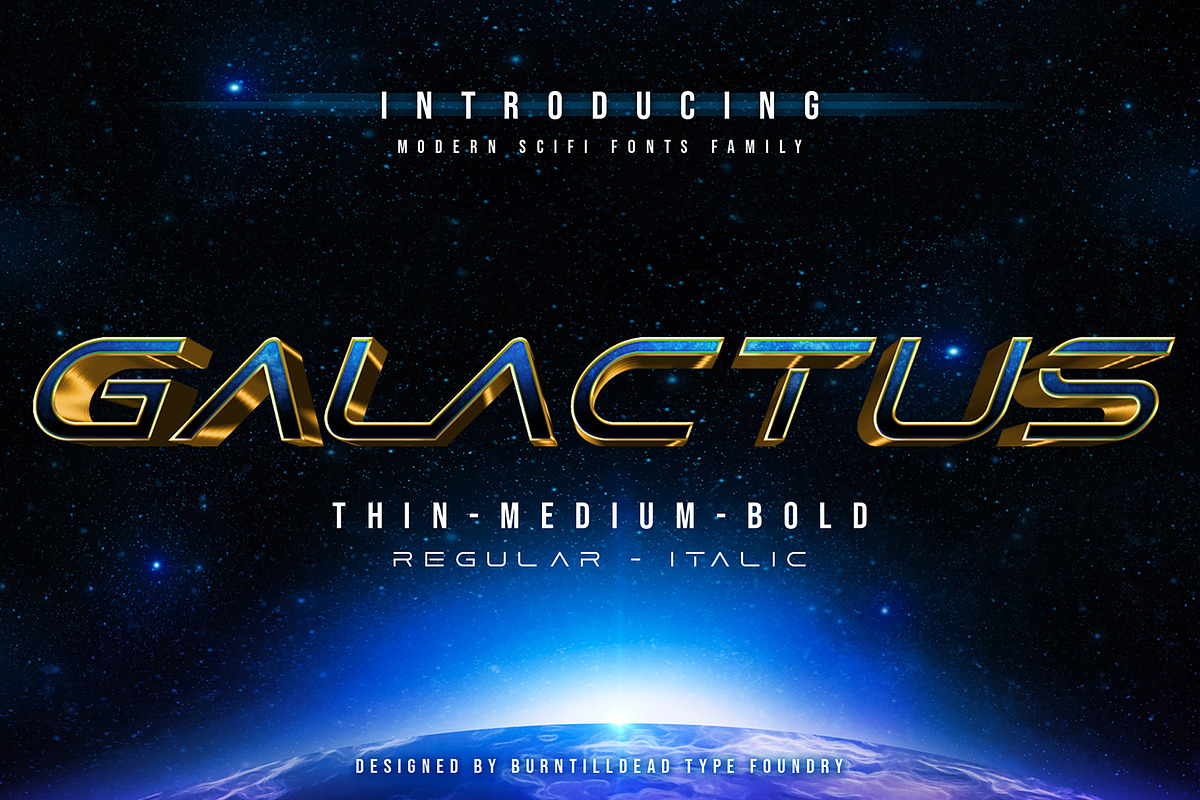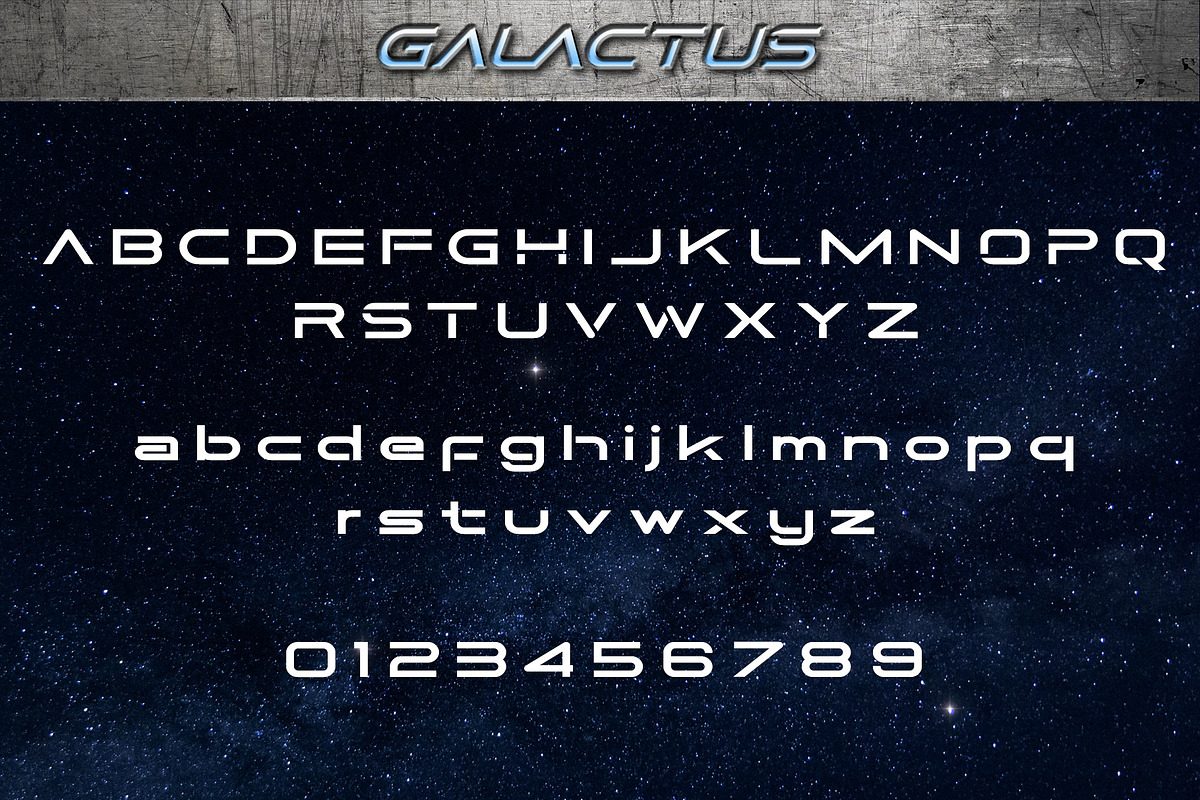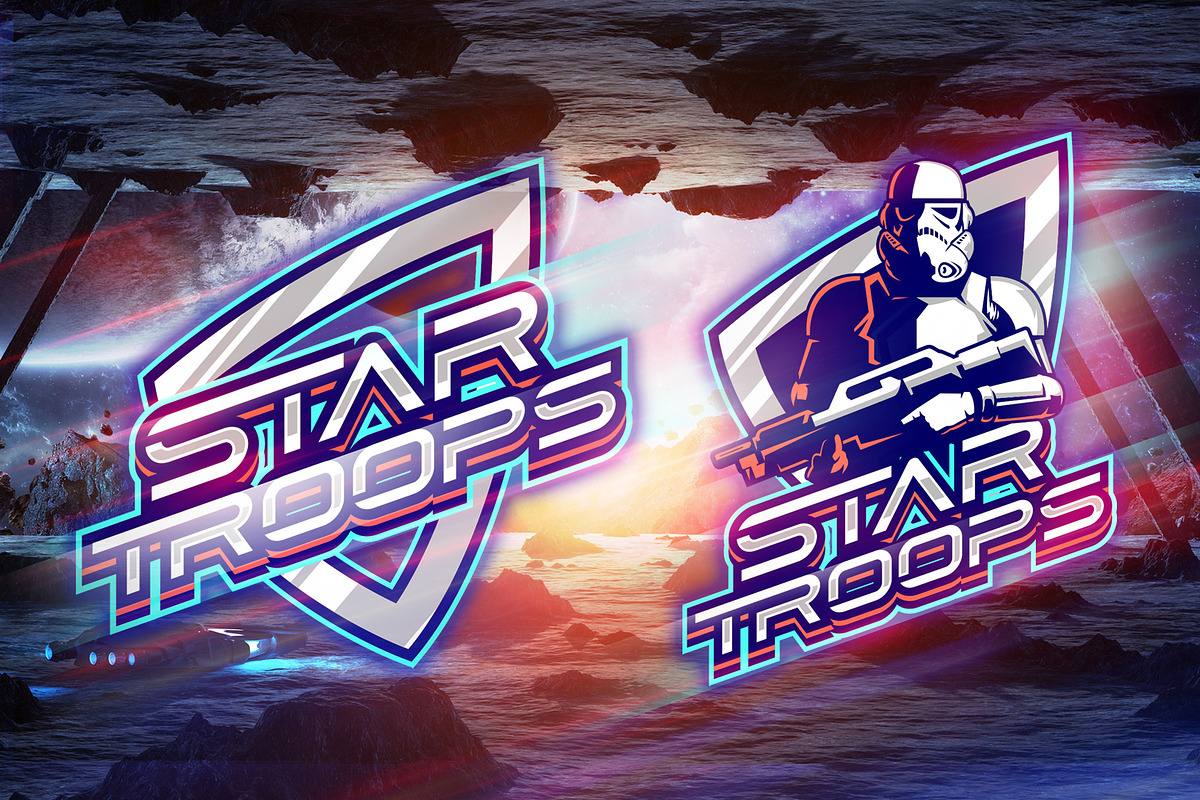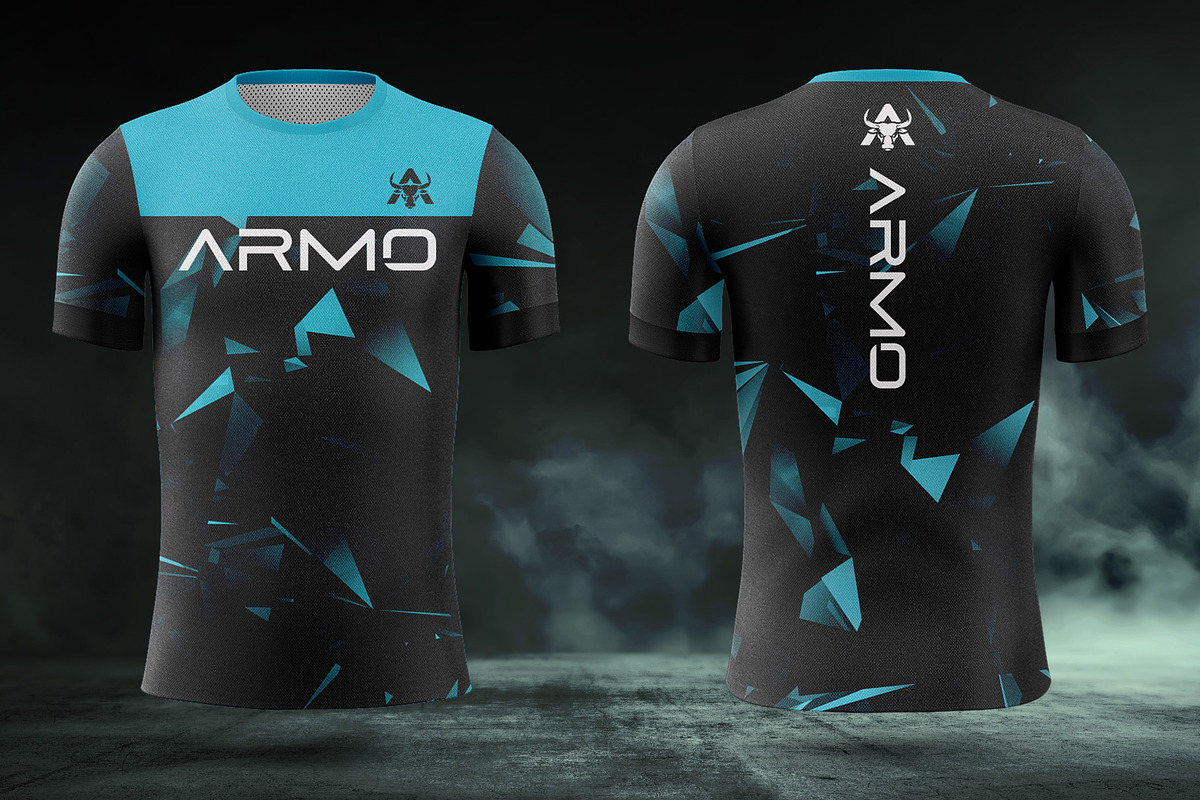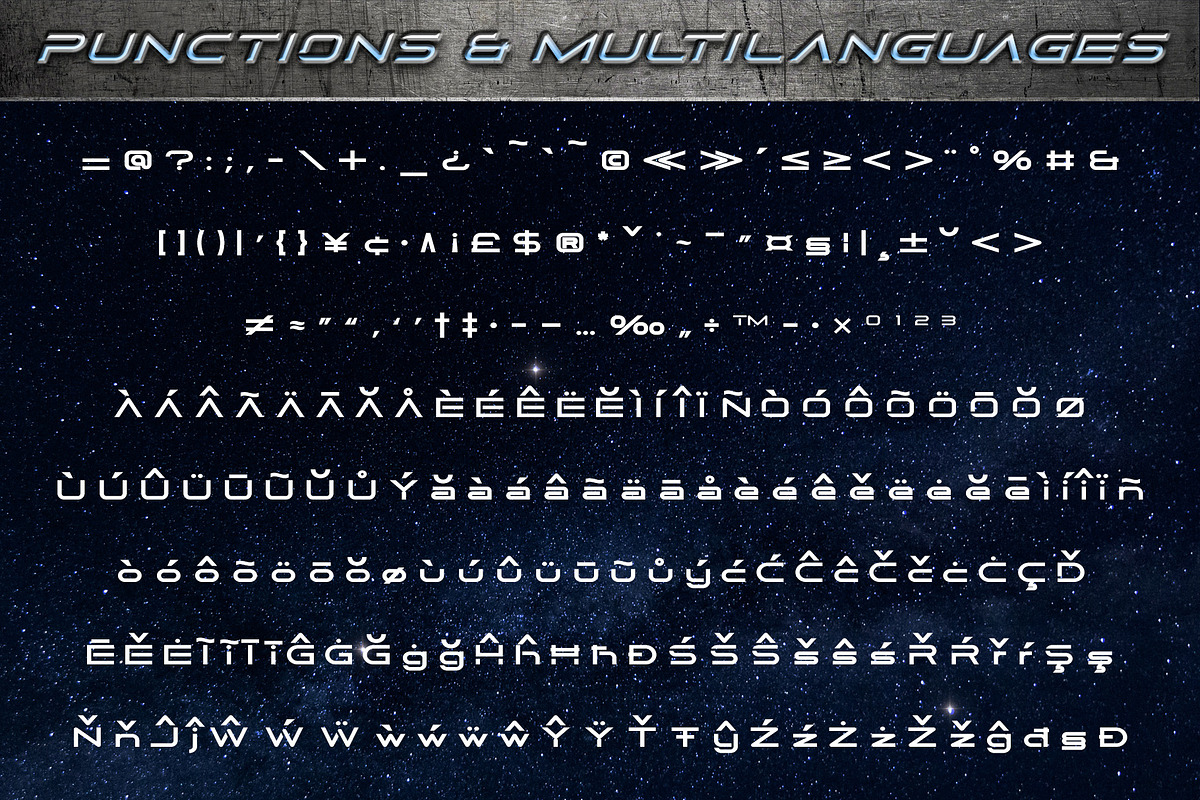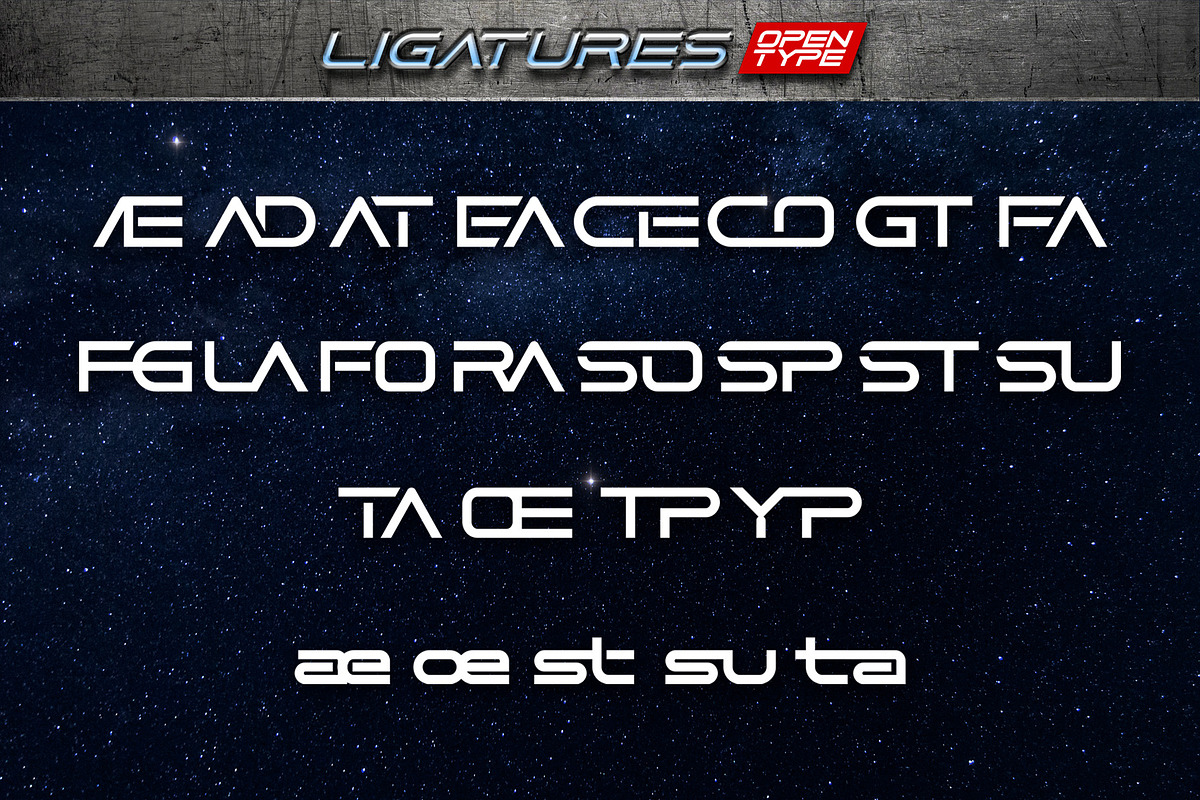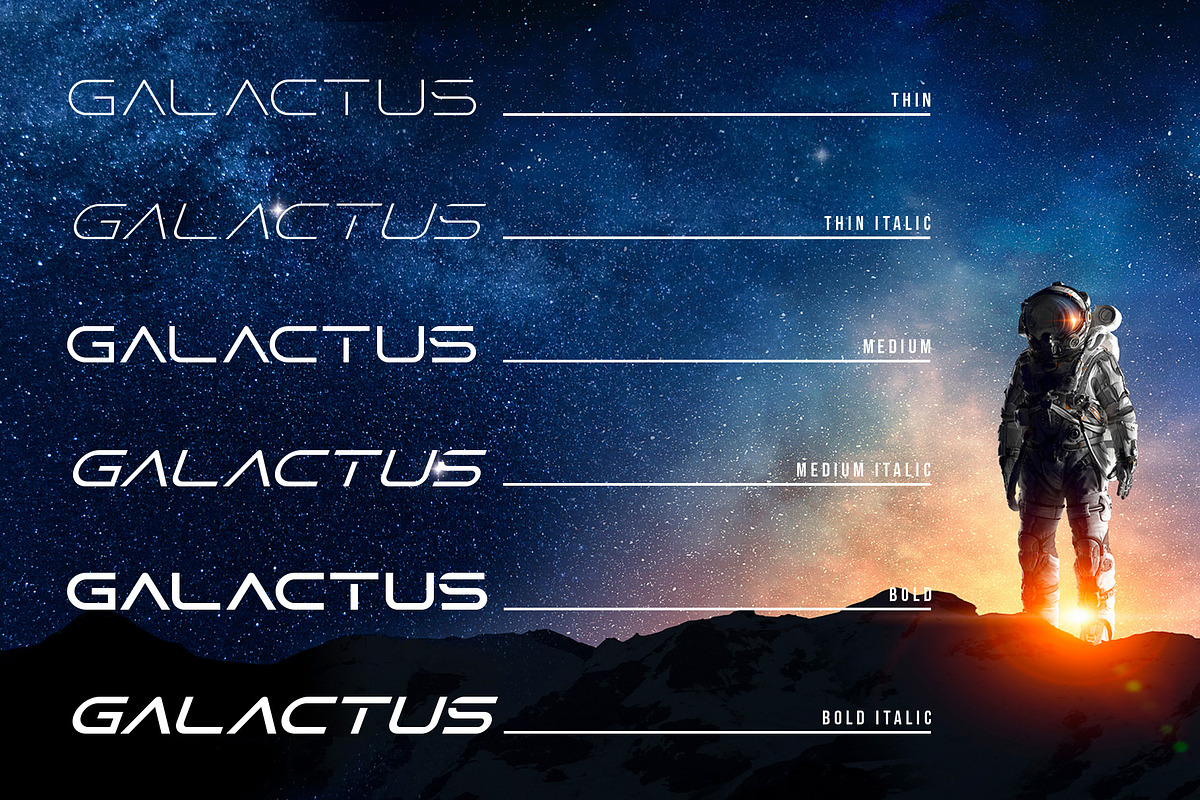
Galactus - SCIFI Font Family
Say Hi: Introducing our new font family called Galactus, a modern display font with wide & clean look. Dedicated to SCIFI logo style. Really great for e-sports logo, aerospace games, jersey designs, automotive logos, etc .
Various Weight: comes in thin, medium and bold weights. Italic version for each weight is also provided.